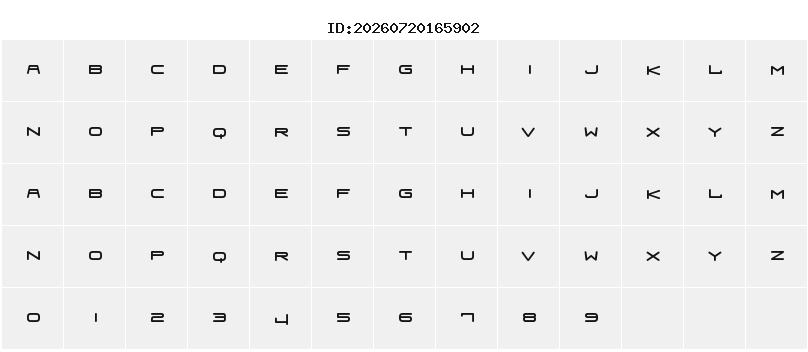
• Font Name: Fraulein I
Fraulein I.ttf is a modern, elegant sans-serif font designed for ultimate readability and visual harmony. Perfect for branding, headlines, web design, and print materials.